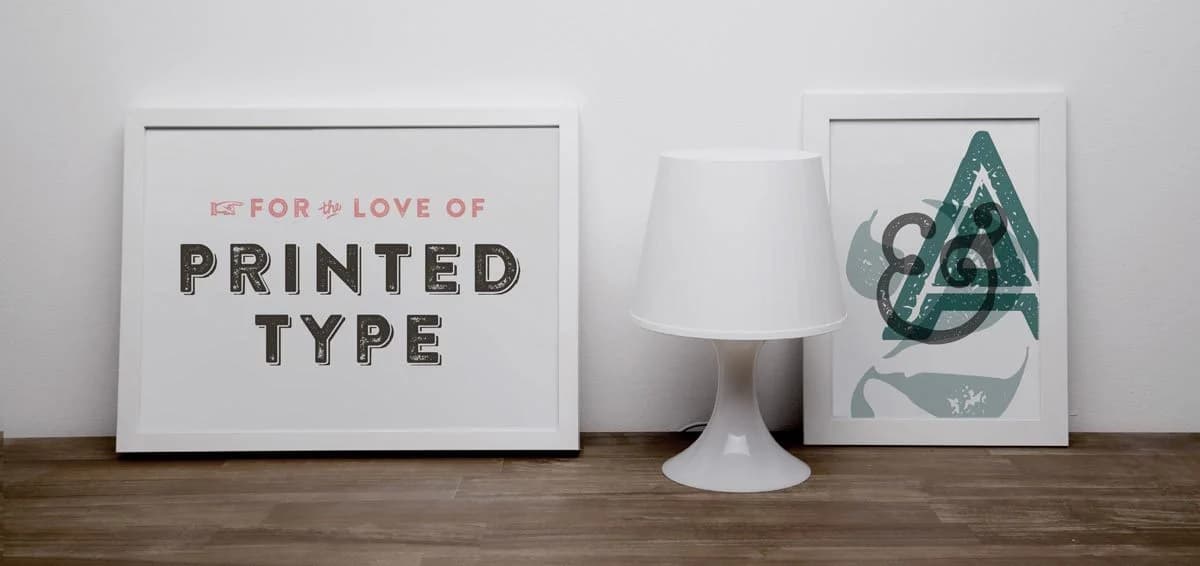
Brandon Printed
A textured, hand-printed variant of Brandon Grotesque with layered distress levels for a worn, tactile quality.
Built on the skeleton of Brandon Grotesque, this display family applies a hand-printed texture in several degrees of distress, letting designers control how weathered the type appears. The layered approach, with variants ranging from lightly worn to heavily degraded, suits packaging, branding and editorial work that calls for an analogue feel. It pairs naturally with the parent family for contrast between clean and textured settings.
Brandon Printed is a display variant of Brandon Grotesque, a geometric humanist sans, given a hand-printed texture overlay that places it firmly in the display/decorative category.